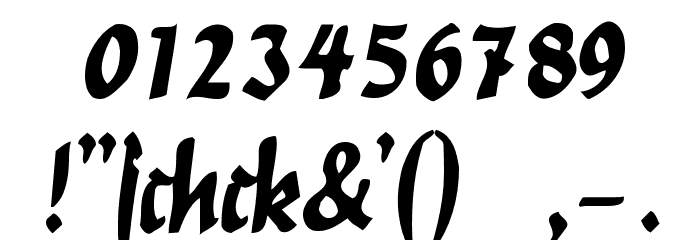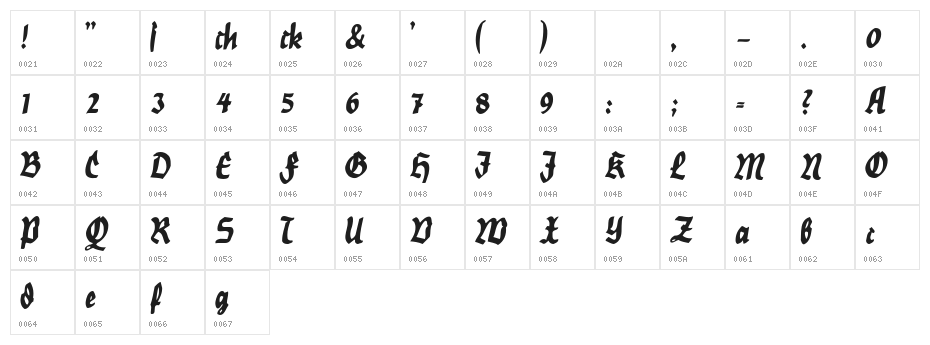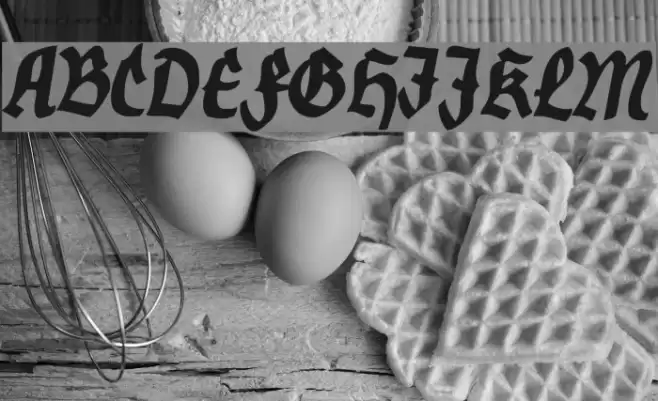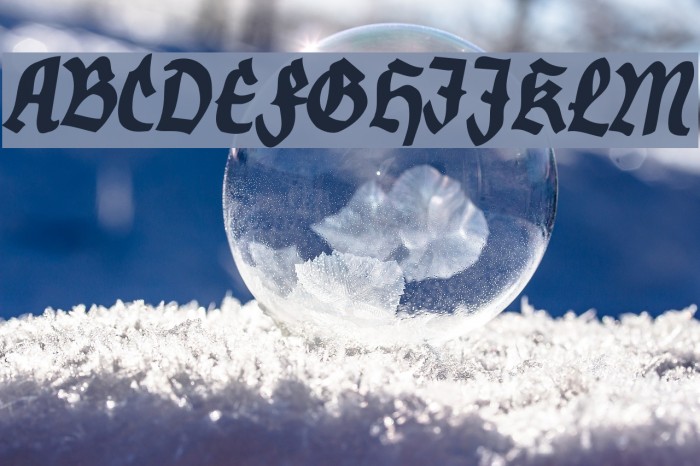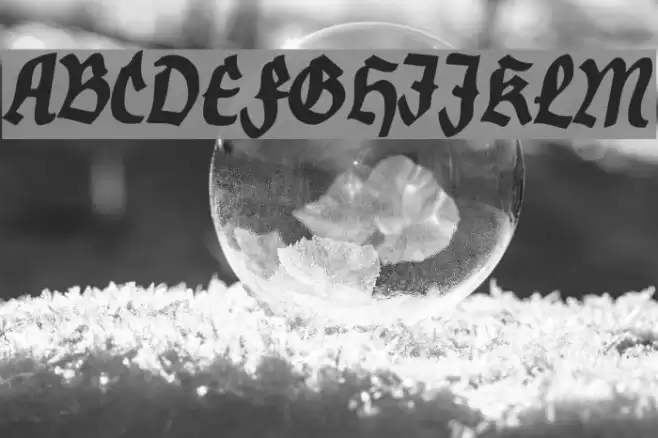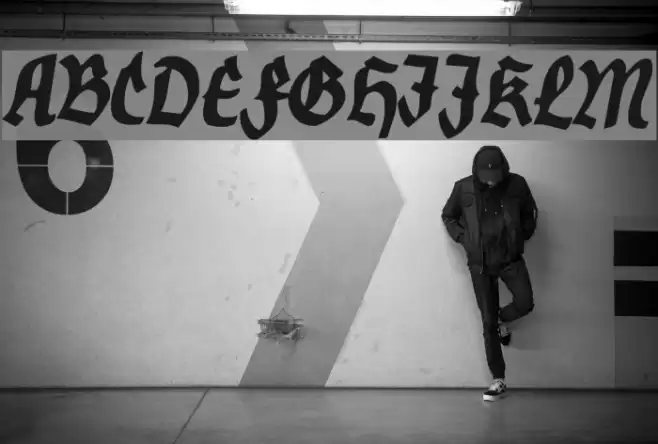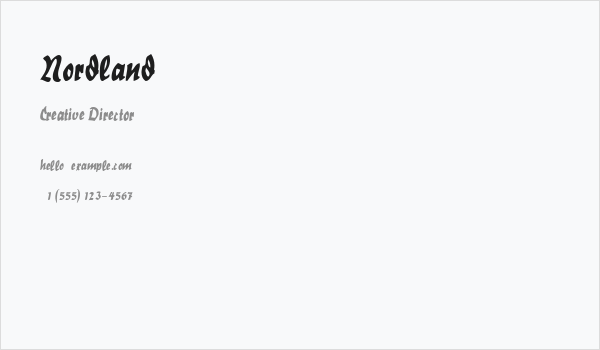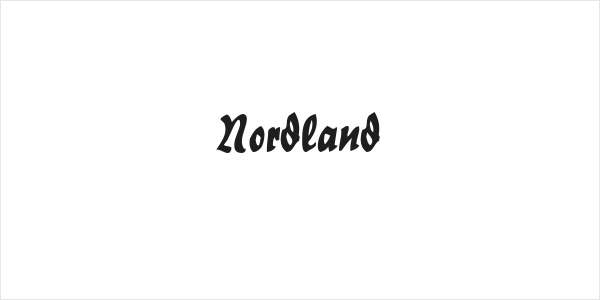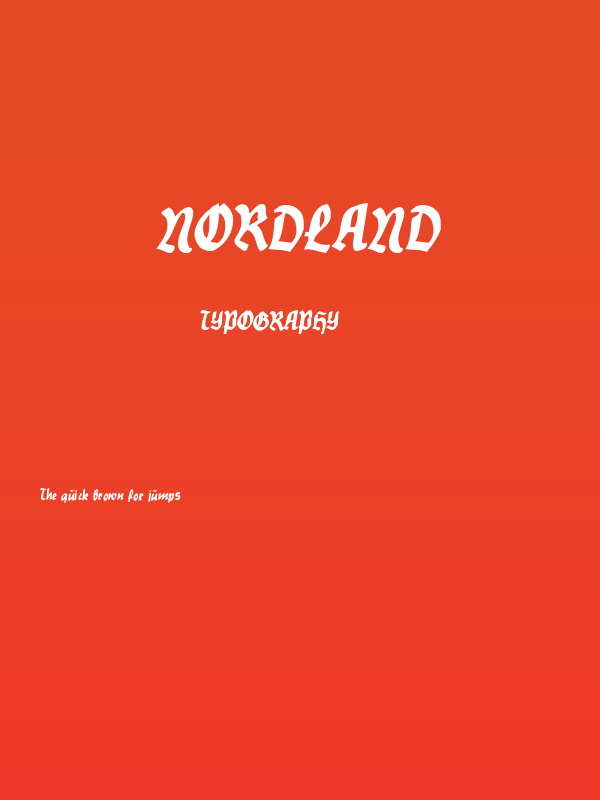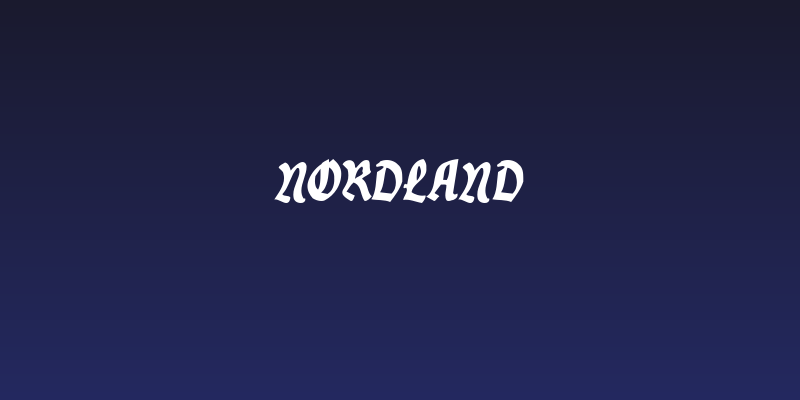
Nordland Font
Nordland Description
This font exhibits a bold and dramatic style, reminiscent of traditional blackletter typefaces. The characters are highly stylized with sharp, angular lines and intricate detailing, giving it a gothic and medieval appearance. The uppercase letters are particularly ornate, with exaggerated serifs and flourishes, while the lowercase letters maintain a consistent style with slightly more rounded forms. The numerals are bold and maintain the same gothic aesthetic, ensuring consistency across all characters. This font is designed to make a strong visual impact, suitable for projects that require a historical or dramatic flair.
Overall StyleGothic, Medieval
Proposed ProjectsIdeal for historical-themed designs, book covers, posters, and branding that requires a dramatic or medieval touch.